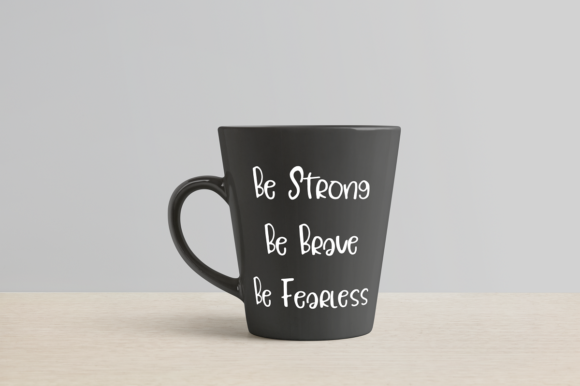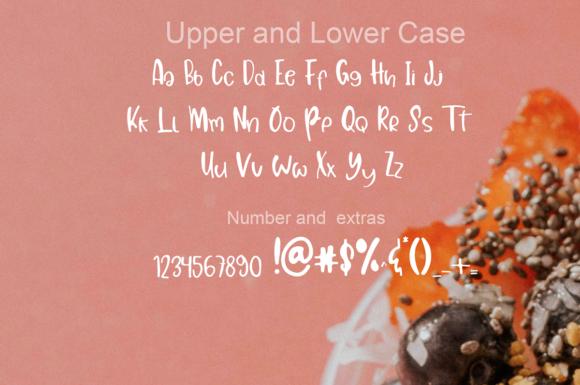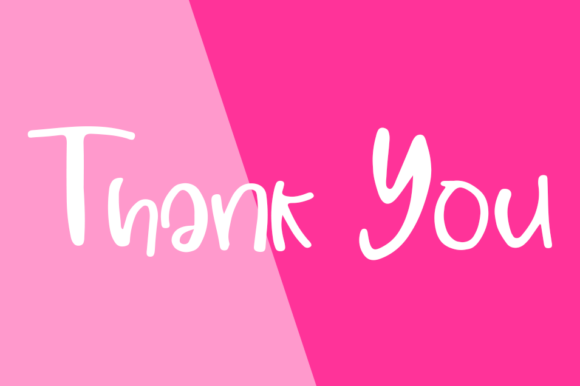
Ice Cream Font
About Ice Cream Font
Ice Cream is a cute and relaxed handwritten font that adds a playful and delightful touch to children-themed designs. With its charming style and relaxed vibe, this font is perfect for creating designs that evoke a sense of joy and fun.
The cute and relaxed nature of Ice Cream brings a sense of sweetness and innocence to your typographic compositions. Its friendly letterforms and soft strokes contribute to a visually appealing and inviting aesthetic. Whether you’re working on children’s books, invitations, party decorations, or any other design project targeting a young audience, Ice Cream font enhances the overall visual appeal with its adorable and relaxed demeanor.
Using Ice Cream font allows you to capture the essence of childhood and create designs that resonate with young audiences. Its handwritten appearance adds a touch of authenticity and warmth, making your designs feel approachable and friendly. This font brings a sense of playfulness and delight, making your designs visually captivating and appealing to children.
Combining Ice Cream font with bright colors further enhances its cuteness and childlike appeal. The vibrant and cheerful palette complements the relaxed vibe of the font, creating a harmonious and eye-catching visual composition.
Incorporating Ice Cream into your designs for children-themed projects empowers you to create delightful and engaging visuals. Its cute and relaxed handwritten font adds a touch of innocence and joy, enhancing the overall impact of your designs.
In summary, Ice Cream is a cute and relaxed handwritten font that adds a playful and delightful touch to children-themed designs. Its friendly letterforms and soft strokes create a sense of sweetness and innocence. Embrace the charm of Ice Cream font and let it enhance your designs with its adorable and relaxed presence, making them visually captivating and appealing to young audiences.